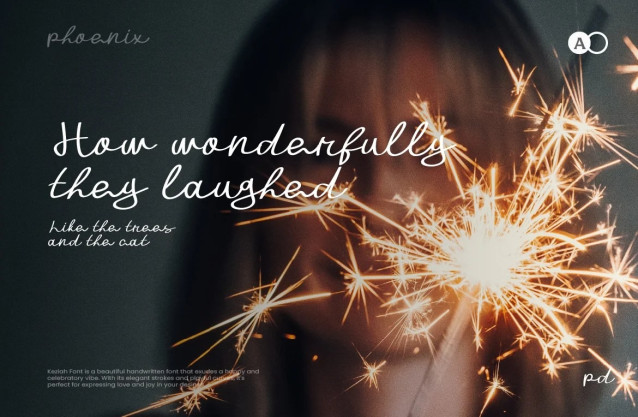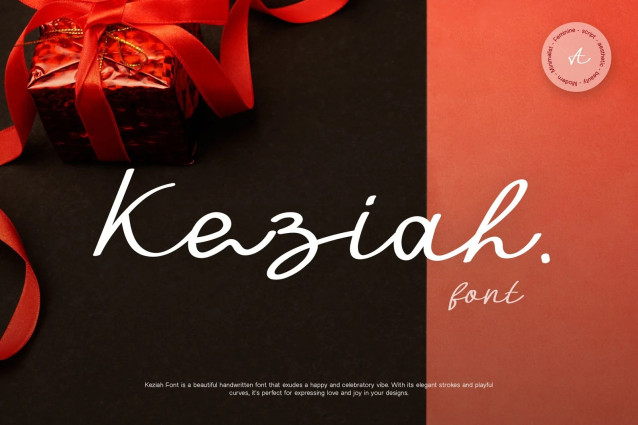
Keziah Script Font
Keziah Script Font is a versatile script font that seamlessly blends minimalist design with both formal and casual elements. Its clean, flowing letterforms combine understated elegance with a relaxed, approachable style, making it perfect for a wide range of applications. Ideal for formal invitations, professional documents, and casual personal projects alike, Keziah offers a sophisticated yet friendly appearance. The minimalist strokes and balanced curves create a refined, modern look, ensuring that Keziah adds a touch of elegance to any design while maintaining an easygoing charm.